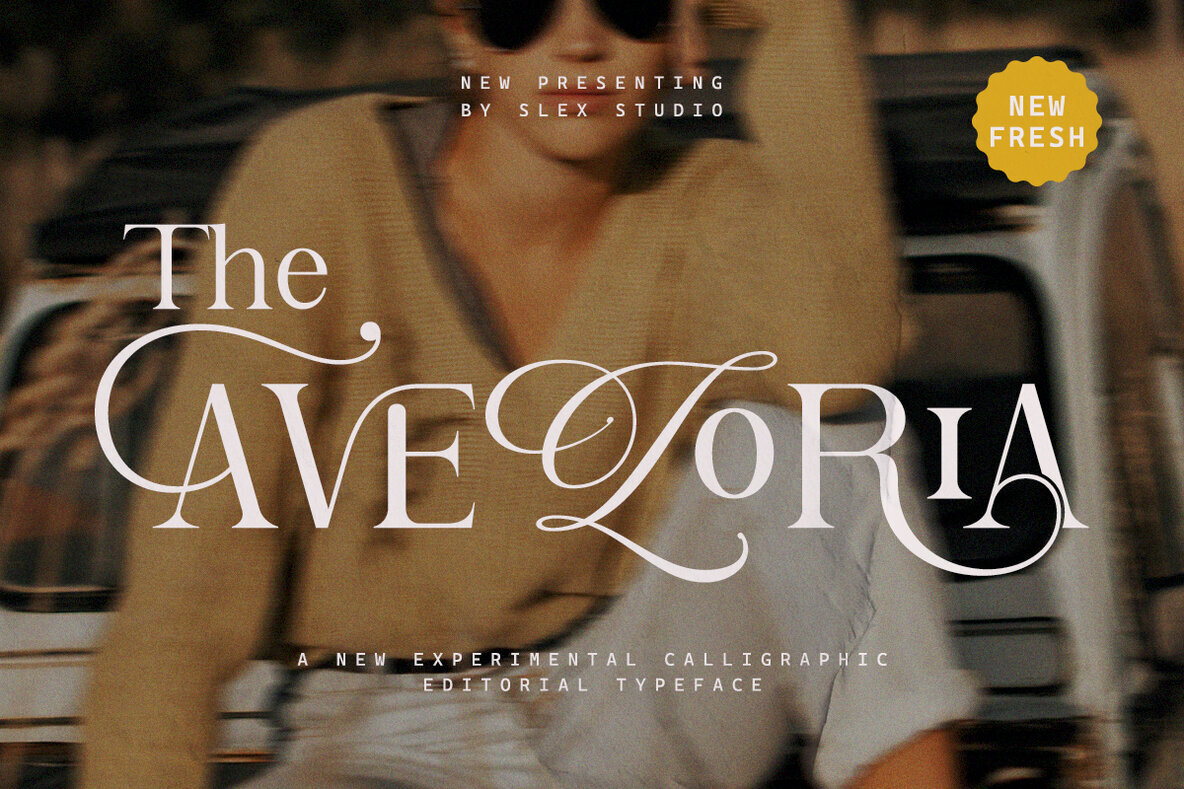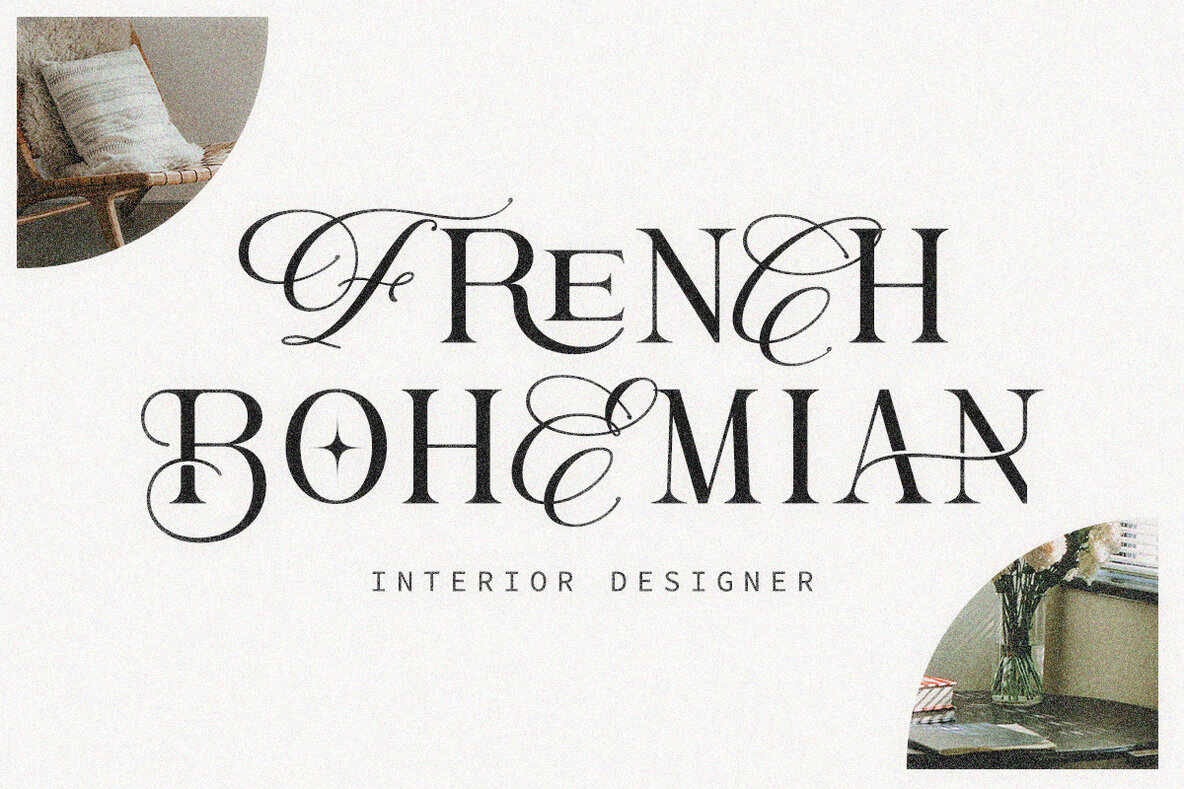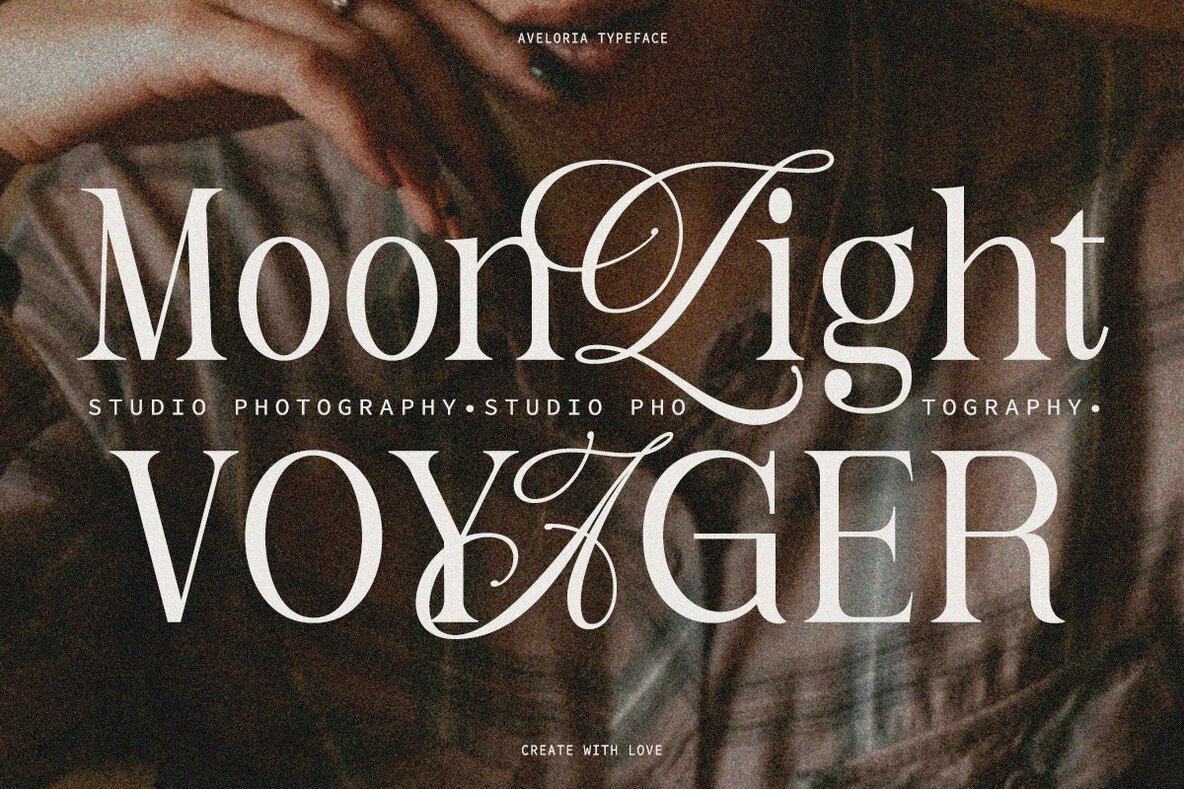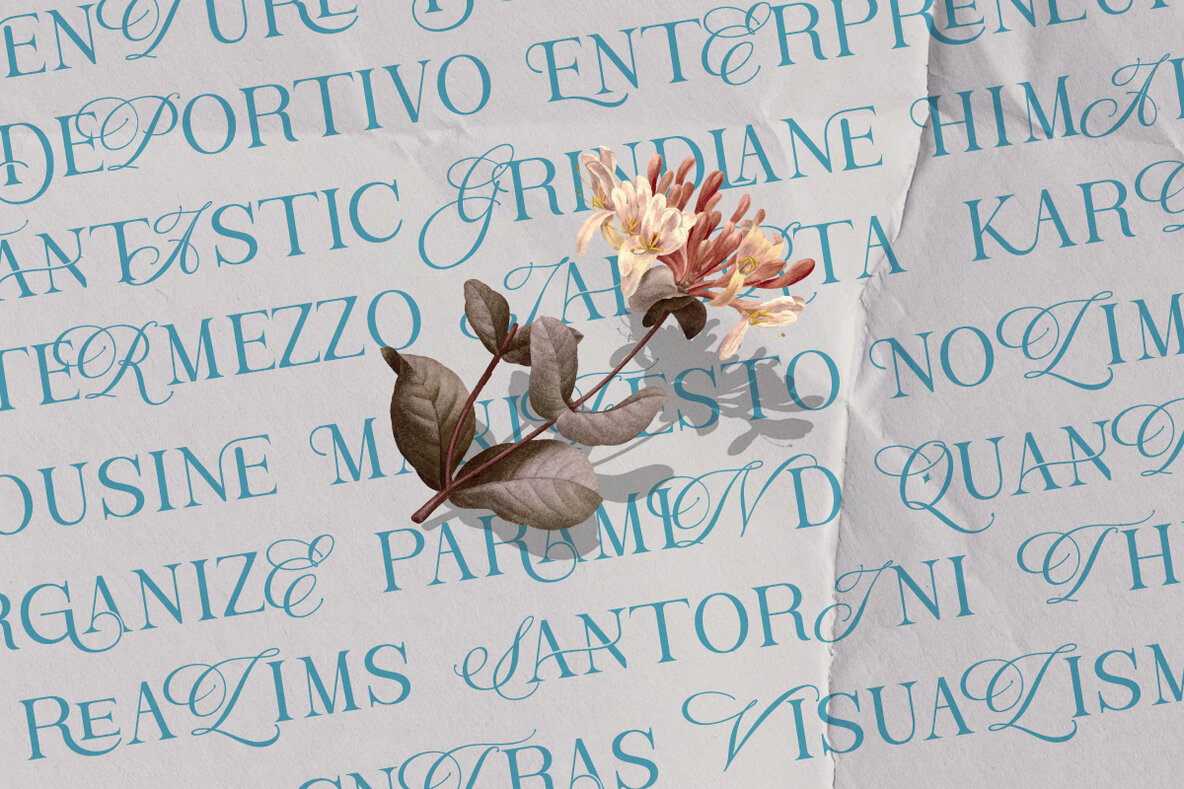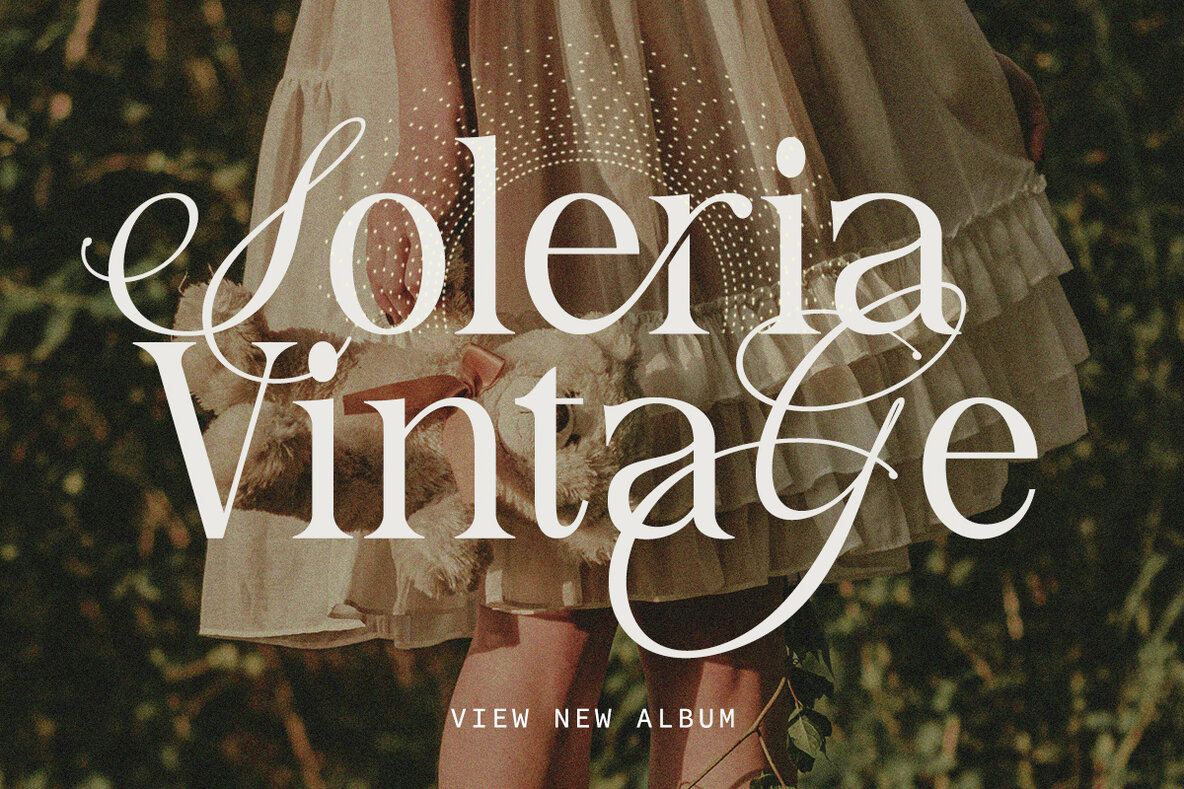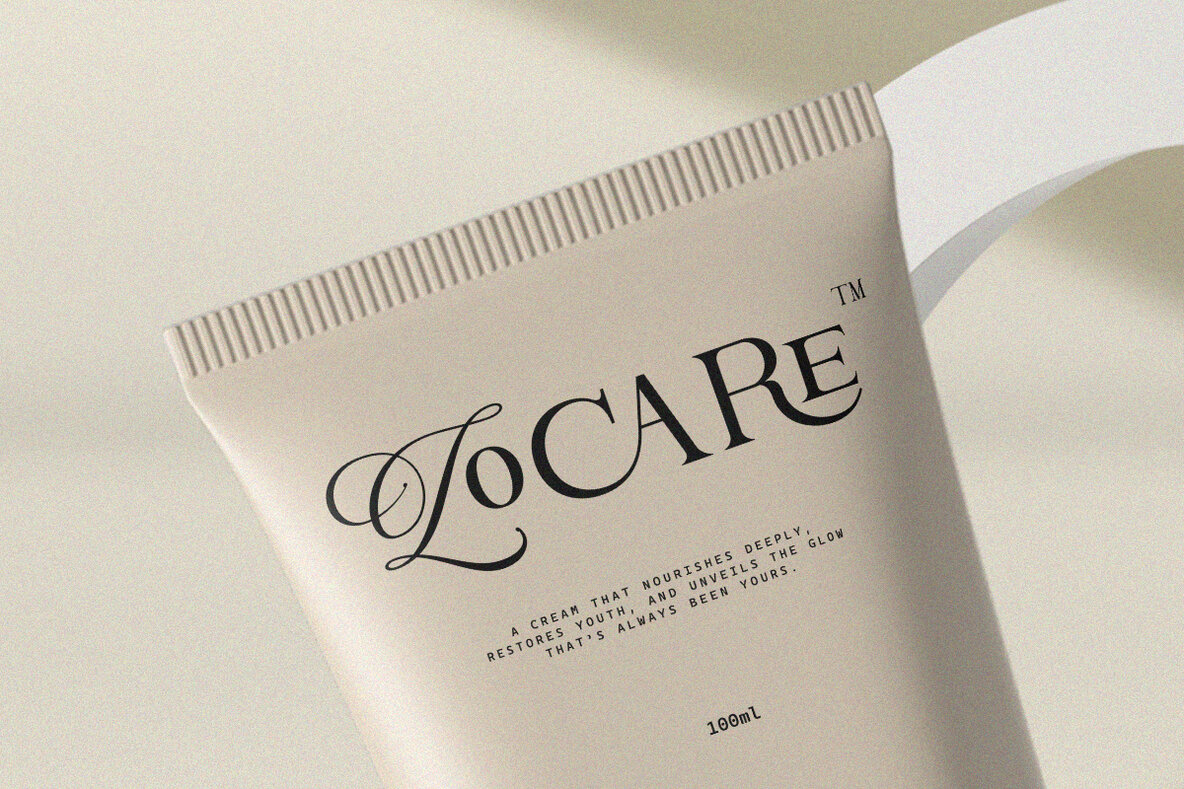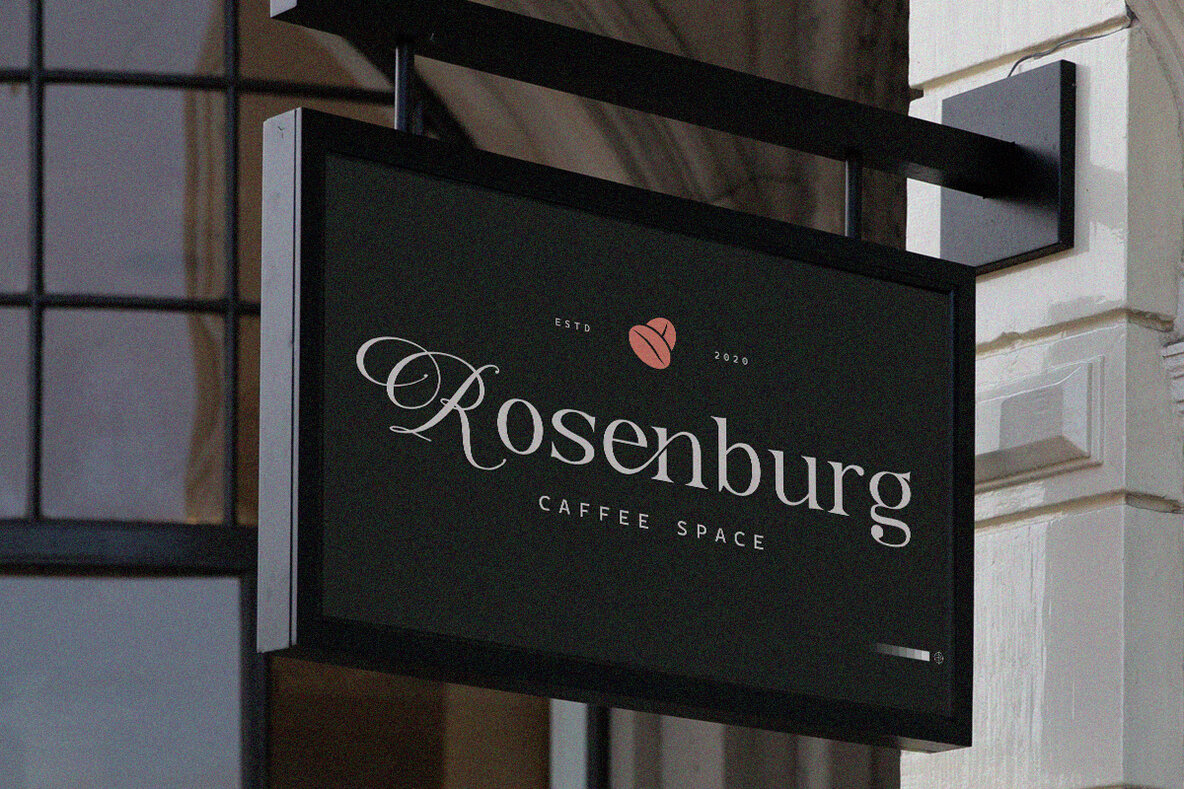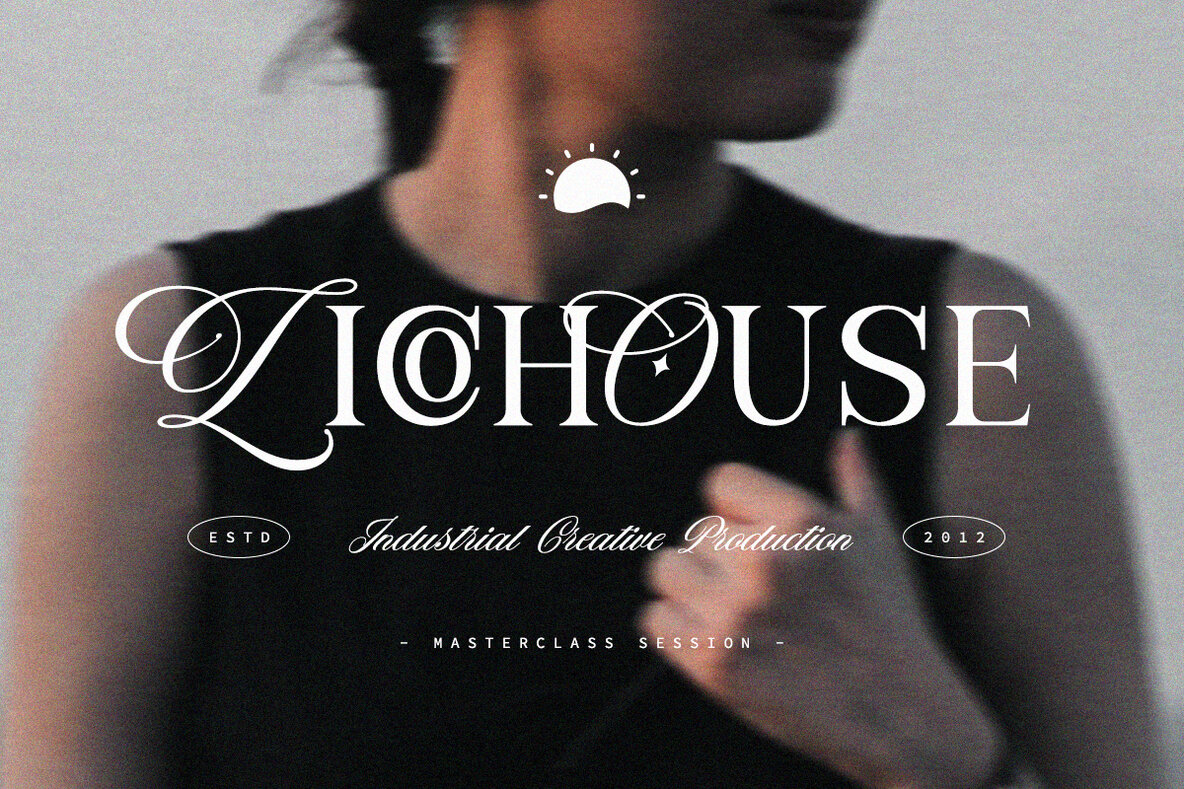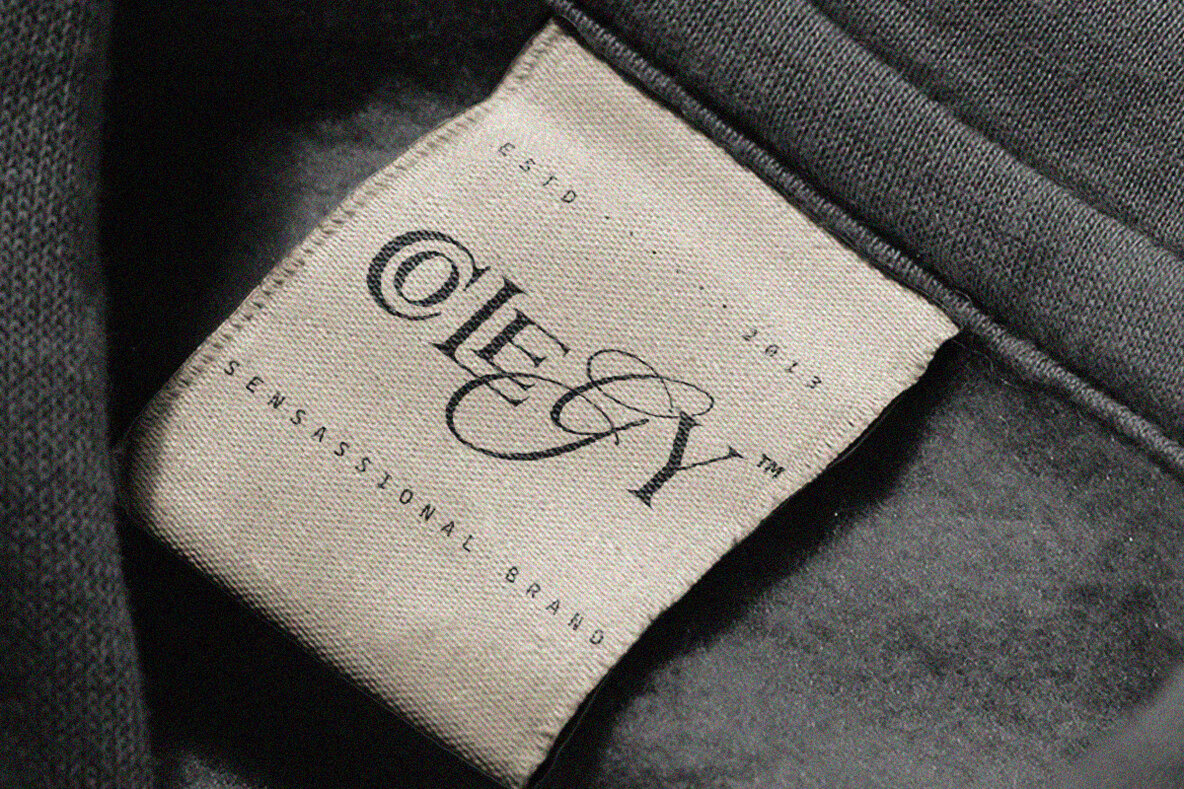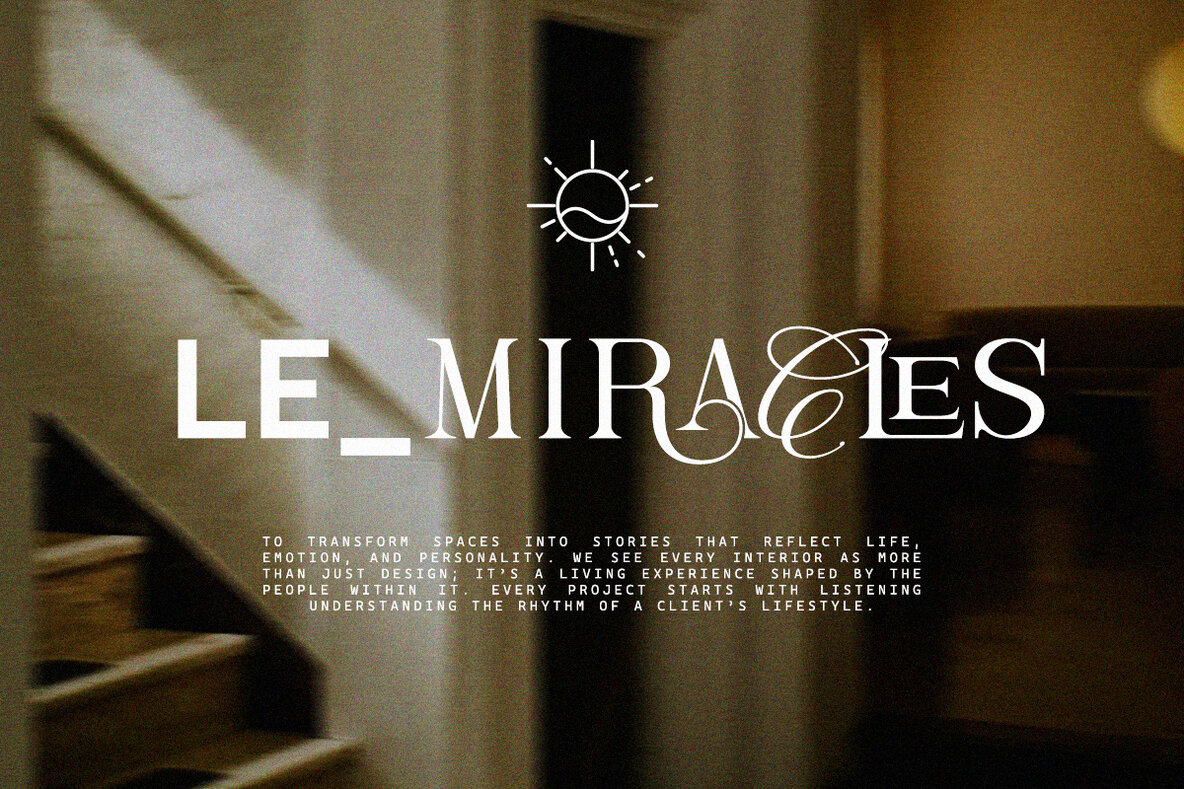
The Aveloria Font
THE AVELORIA Regular
The Aveloria offers a distinctive blend of calligraphic elegance and modern editorial boldness. Its sweeping curves and sharp contrasts, paired with graceful ligatures, evoke a luxurious and timeless aesthetic. Ideally suited for high-end branding, fashion editorials, and logo design, The Aveloria merges classical beauty with contemporary flair.The Aveloria: Elegant Typeface for High-End Branding